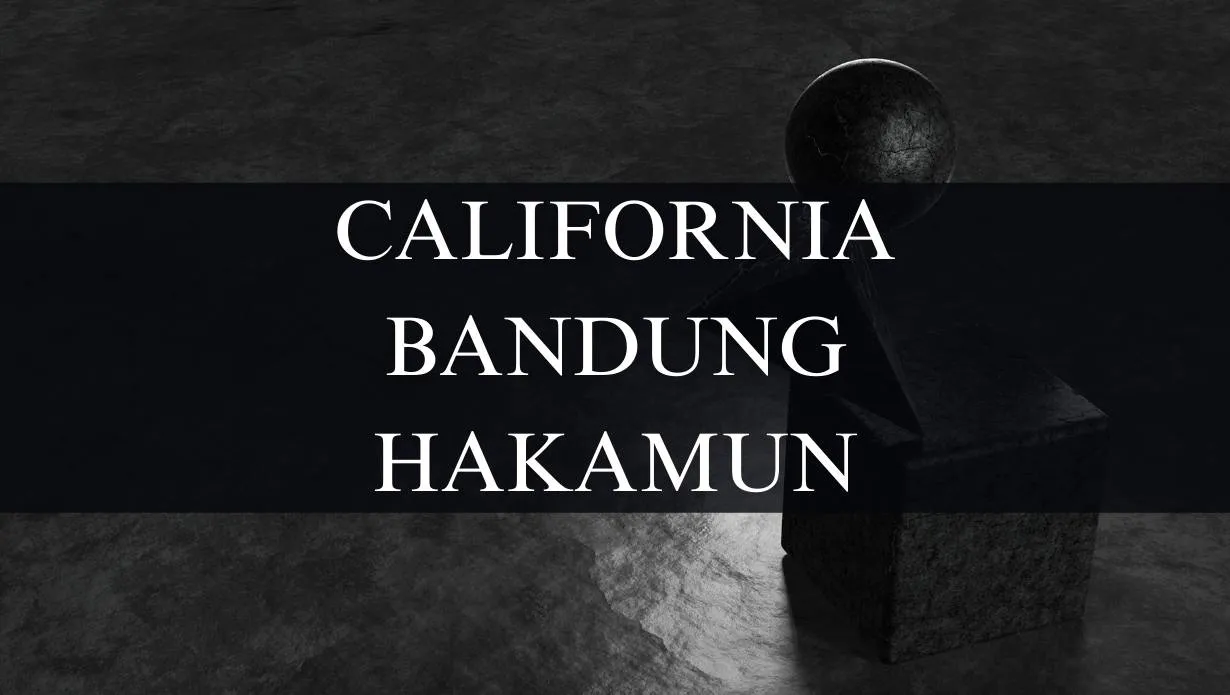
Times New Roman Font is one of the most popular fonts in use today. It was designed by Stanley Morison for The Times newspaper of London. Times New Roman Font is a serif font, meaning it has extra lines at the ends of each character.
When Times was first used in 1932 it quickly became one of the most popular fonts and currently is the face of many books and publications. It is closely related to its predecessor, Times (1929), and is sometimes referred to as Times Classic. It has a very traditional look with letters that are narrow and even. You may easily combine this font with Josefin Sans font.
View of Times New Roman Font
Times New Roman Font Info
| Name | Times New Roman Font |
| Designer | Stanley Morison |
| Category | Serif |